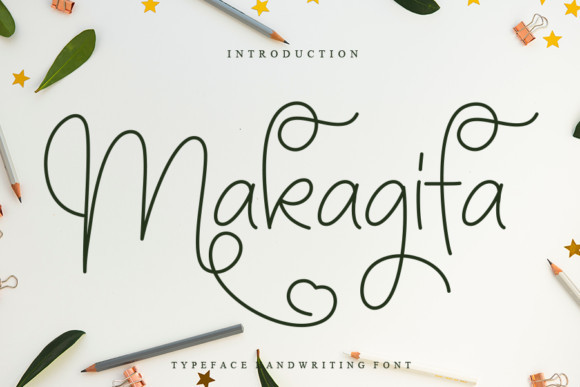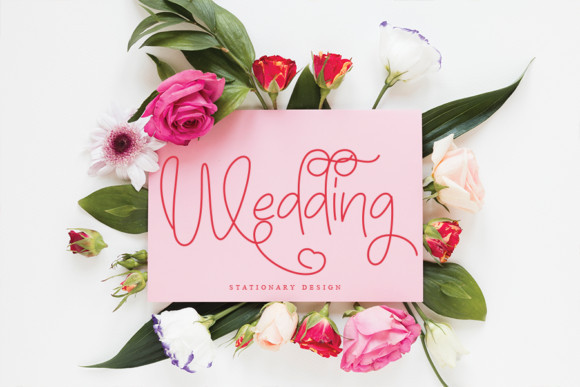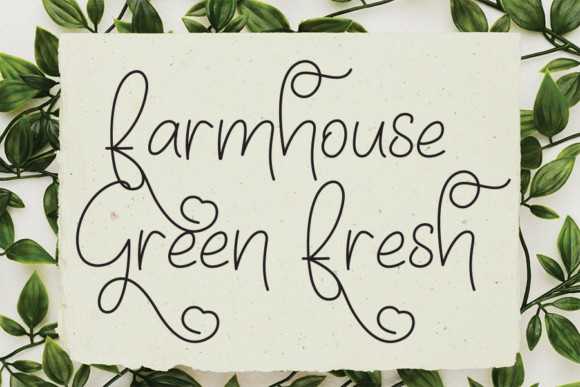
Makagifa Font
Makagifa is an elegant and flowing handwritten font. It has beautiful and well-balanced characters that are perfect for designs such as logos, stationery art, quotes, book covers, magazines, branding, and much more. Add it to your most unique ideas to make your projects stand out.